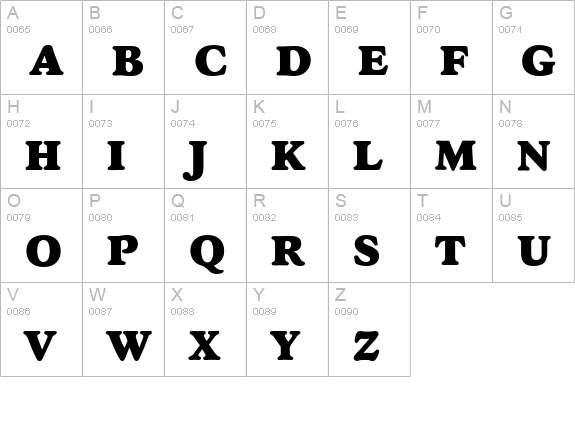
StratfordSerial-Black-Regular is a maximum-weight, dramatic variant in the StratfordSerial typeface family \xE2\x80\x94 well suited to maximum-impact headlines, posters, and packaging.
StratfordSerial-Black-Regular is a modern and bold font that exudes sophistication and elegance. Its sleek and sleek design makes it perfect for a wide range of design projects, from branding to editorial design. The clean lines and sharp edges of this font give it a contemporary feel that is sure to make your text stand out. The best part? You can download StratfordSerial-Black-Regular for free at FontsMarket.com. This means you can add this stylish font to your collection without breaking the bank. Whether you're designing a website, creating a poster, or crafting a logo, this versatile font is sure to elevate your project to the next level. Don't miss out on the opportunity to enhance your designs with the sleek and modern look of StratfordSerial-Black-Regular. Download it for free today at FontsMarket.com and let your creativity shine.